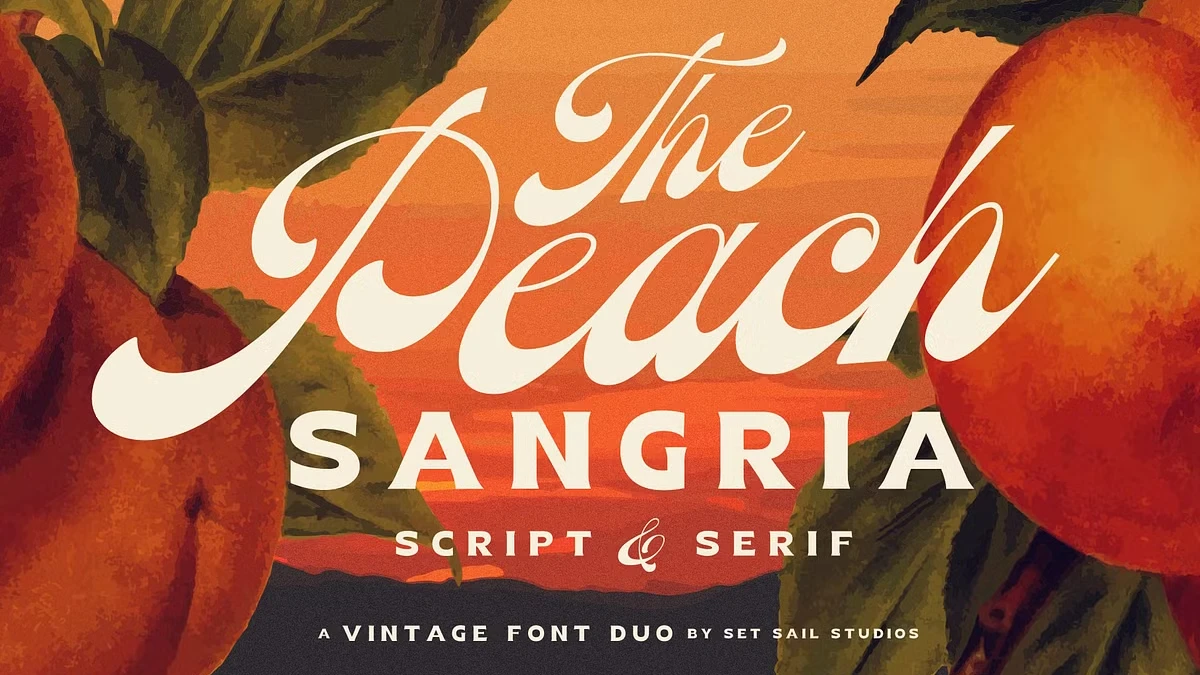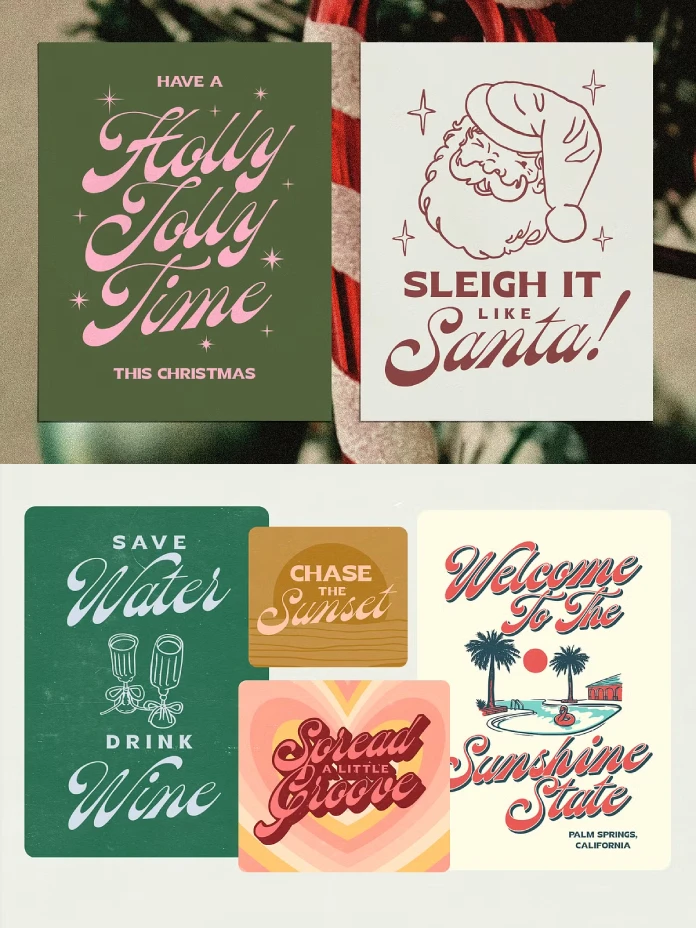
The Peach Sangria Font Duo Blends Retro Charm with Modern Elegance, Creating a Timeless Typographic Harmony.
A design isn’t just what you see; it’s how it makes you feel. The right typography can transport an audience to a different era, evoke a specific emotion, or simply make a message resonate more deeply. In the vast world of typefaces, the Peach Sangria font duo, created by Sam Parrett of Set Sail Studios, emerges as a masterful blend of nostalgic warmth and contemporary chic. This font pairing is more than just a set of characters. Instead, it’s a design tool that empowers creatives to tell compelling visual stories.
The resurgence of retro-inspired design is not merely a fleeting trend. It’s a testament to the enduring appeal of aesthetics from the past. We’re seeing a collective yearning for authenticity in a digitally saturated world. Consequently, vintage-style fonts answer that call with their expressive and often handcrafted feel. The Peach Sangria font duo perfectly captures this sentiment, offering a sophisticated yet approachable typographic solution.
Who is the Mastermind Behind the Font?
Before delving into the intricacies of this stunning font duo, it’s essential to understand the creative force behind it. Sam Parrett, the founder of Set Sail Studios, is a UK-based designer with a passion for crafting unique, eye-catching fonts. His journey into typography began after a successful career in the music industry. There, he honed his skills in creating expressive, hand-lettered forms. This background is evident in the dynamic and often handmade quality of his work. Parrett’s design philosophy revolves around breaking away from generic letterforms and injecting personality into every typeface he creates.
Deconstructing the Peach Sangria Font Duo
What makes the Peach Sangria font duo so special? It’s the thoughtful combination of two distinct yet harmonious fonts. This pairing eliminates the often-challenging task of finding complementary typefaces. Therefore, it provides a ready-made solution for stunning typography.
The Star of the Show: Peach Sangria Script
The heart of this duo is the Peach Sangria Script. It is a flowing, bottom-heavy script that exudes a timeless, classic feel. Its elegant curves and connected letterforms are reminiscent of vintage hand-lettering. This adds a touch of sophistication to any design. The “bottom-heavy” characteristic gives it a grounded and substantial presence. This beautiful script font includes a full set of uppercase and lowercase characters, numerals, and punctuation. Additionally, it offers stylistic alternates for a more customized and natural look.
The Perfect Partner: Peach Sangria Serif
Complementing the script is the Peach Sangria Serif. This is a chunky, poster-ready font that provides a strong and stable counterpart. This all-caps serif font is bold and impactful. As a result, it is ideal for headlines, logos, and other display purposes. Its clean lines and solid structure offer a beautiful contrast to the fluid grace of the script. This creates a balanced and visually appealing typographic hierarchy.
Why This Font Duo Works So Well
The magic of the Peach Sangria font duo lies in its masterful execution of font pairing principles. Combining a script font with a serif font is a classic technique. It helps achieve a dynamic and engaging design. The contrast between the ornate style of the script and the structured nature of the serif creates visual interest. It also helps to guide the reader’s eye effectively.
Think of it as a conversation between two distinct personalities. The script is the expressive and eloquent speaker. Meanwhile, the serif is the confident and clear respondent. Together, they create a dialogue that is both captivating and easy to follow. This harmonious relationship makes the Peach Sangria font duo an incredibly effective tool.
How to Use the Peach Sangria Font Duo
The versatility of the Peach Sangria font duo makes it a valuable asset for a wide range of design projects. How can you use this font for your next project? Here are just a few ideas to spark your creativity:
- Branding and Logos: Create memorable logos that convey craftsmanship and authenticity. The combination of the script and serif is perfect for businesses in the creative, hospitality, and lifestyle sectors.
- Social Media Graphics: Craft eye-catching posts for Instagram and Pinterest. The bold serif is excellent for grabbing attention. Subsequently, the script can be used for a personal touch in quotes or descriptions.
- Invitations and Stationery: Design elegant and charming wedding invitations, greeting cards, and other stationery. The romantic feel of the script adds a touch of warmth and personality.
- Packaging and Merchandise: Give your products a boutique and artisanal feel. Use packaging that features this beautiful font duo. It’s perfect for everything from coffee bags to cosmetic labels.
- Website Headers and Display Text: Make a strong first impression with a website header that uses the Peach Sangria font duo. The bold serif is highly legible for headlines, while the script can add flair to subheadings.